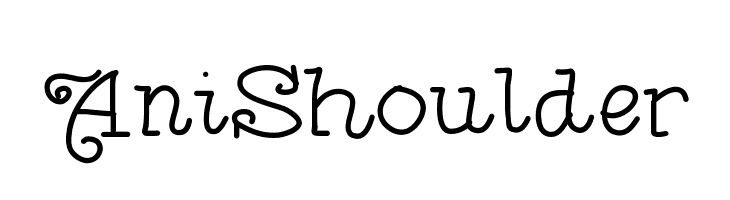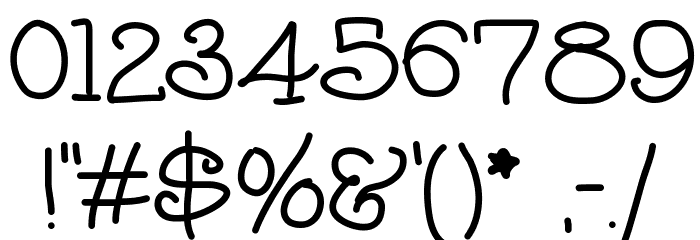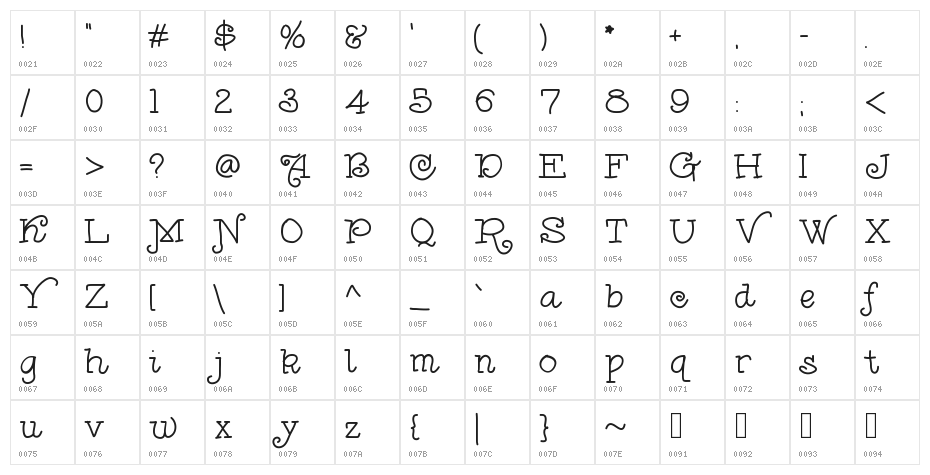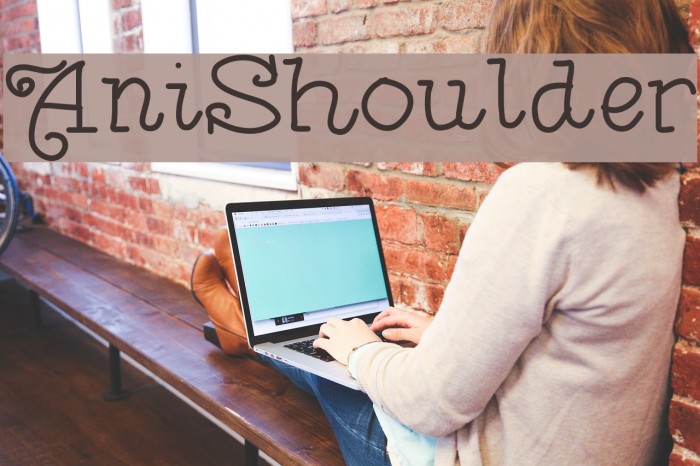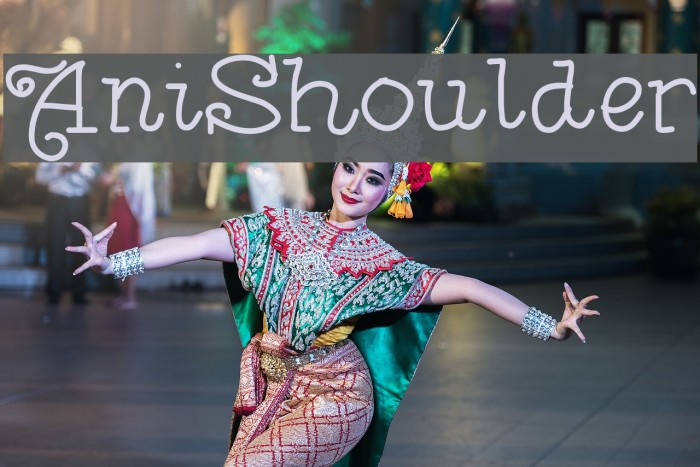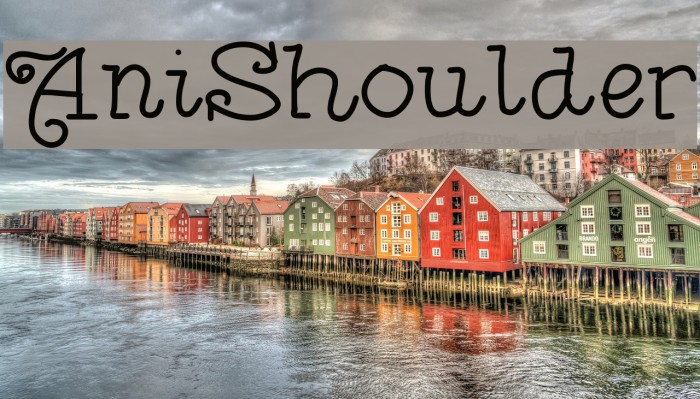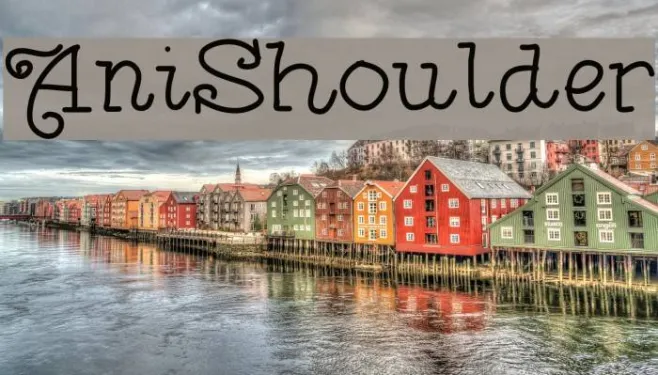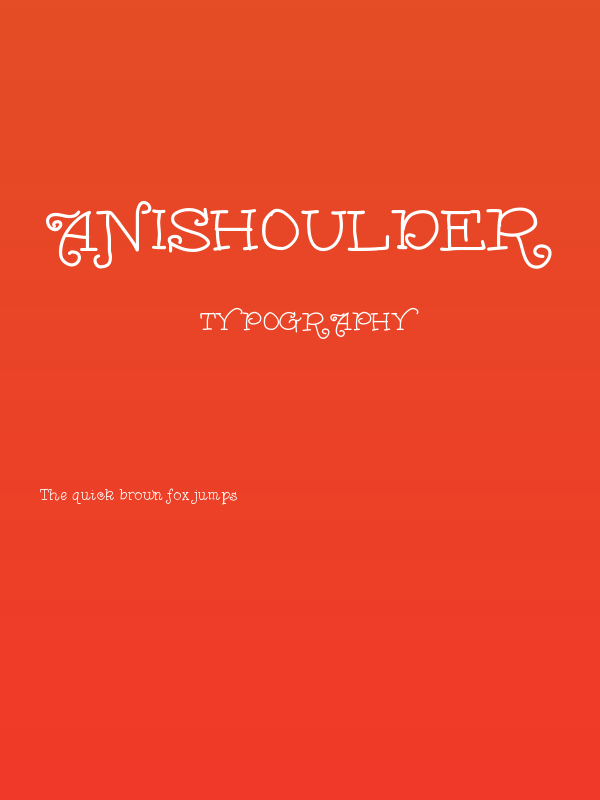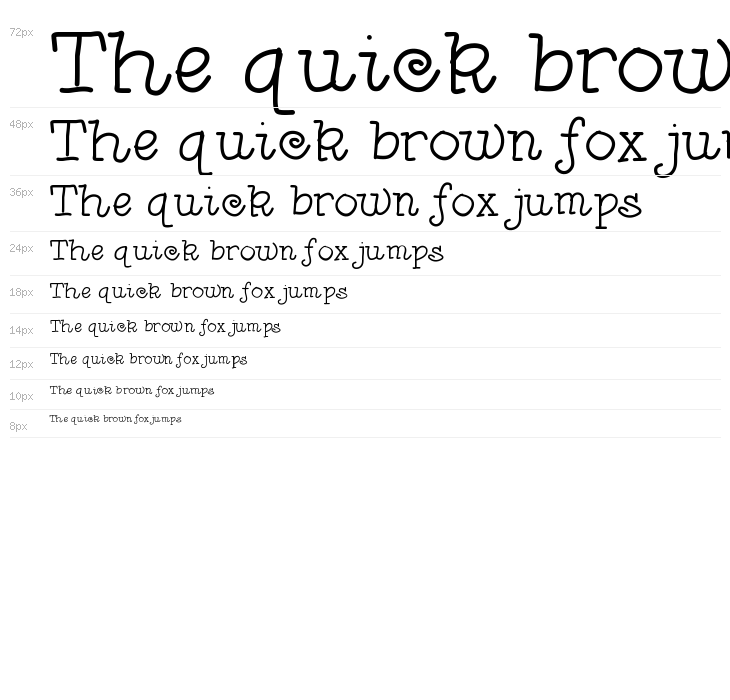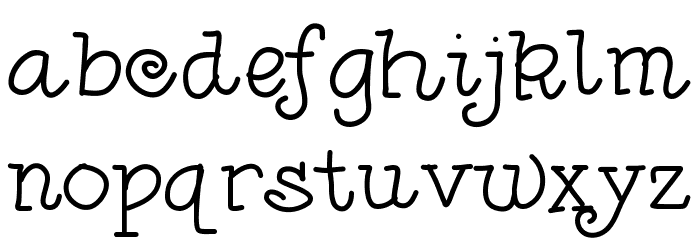
AniShoulder Font
AniShoulder Description
This font features a playful and whimsical design, characterized by its curly and decorative serifs. The uppercase letters exhibit a unique flair with exaggerated curves and loops, giving them a lively and animated appearance. The lowercase letters maintain a consistent style, with rounded edges and a slightly informal touch. The numerals are bold and easily readable, while the special characters integrate seamlessly with the overall aesthetic. This font's distinct personality makes it ideal for creative and fun projects.
| Overall Style | Whimsical |
| Proposed Projects | Perfect for children's books, playful branding, greeting cards, and creative posters. |